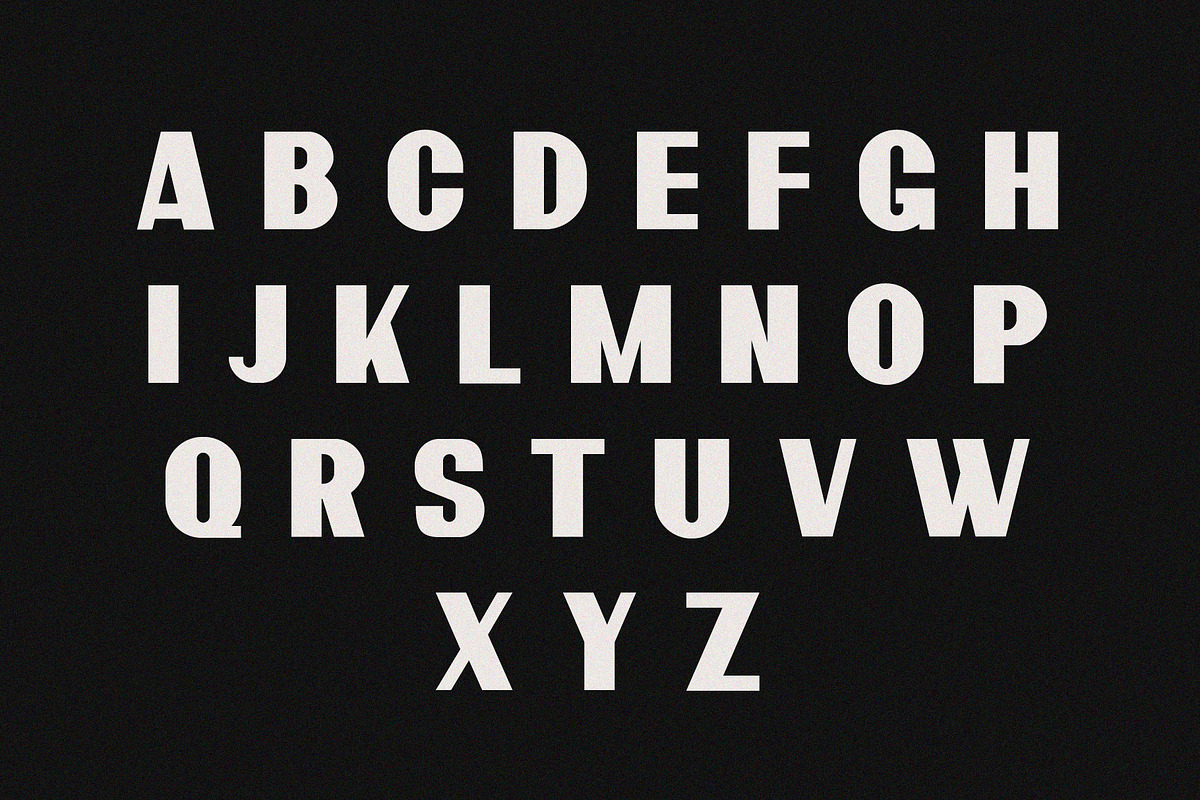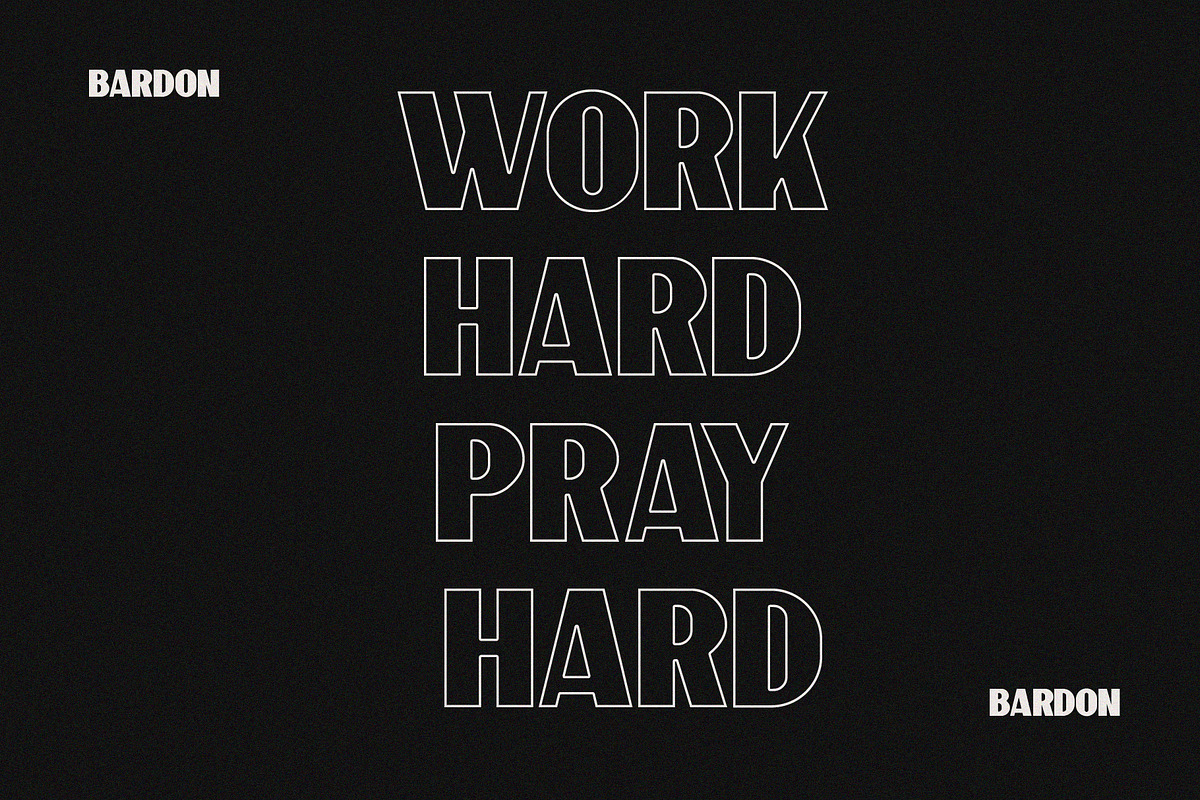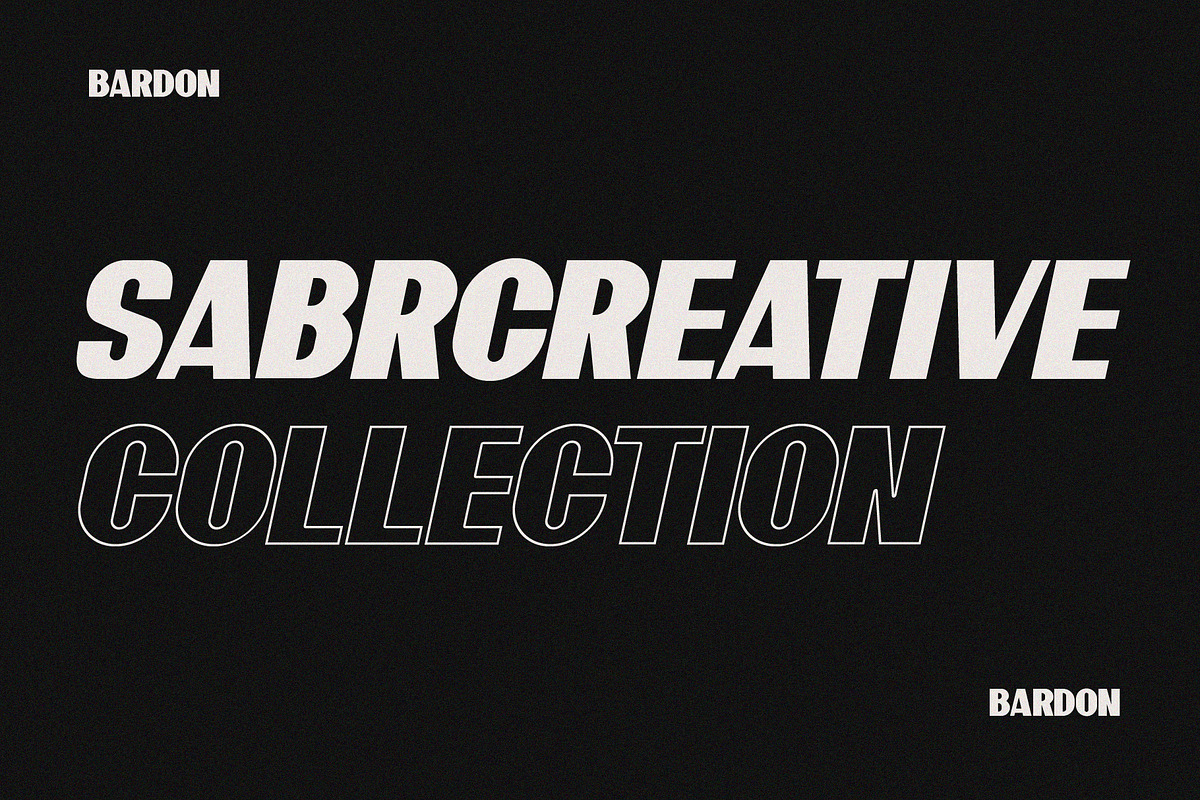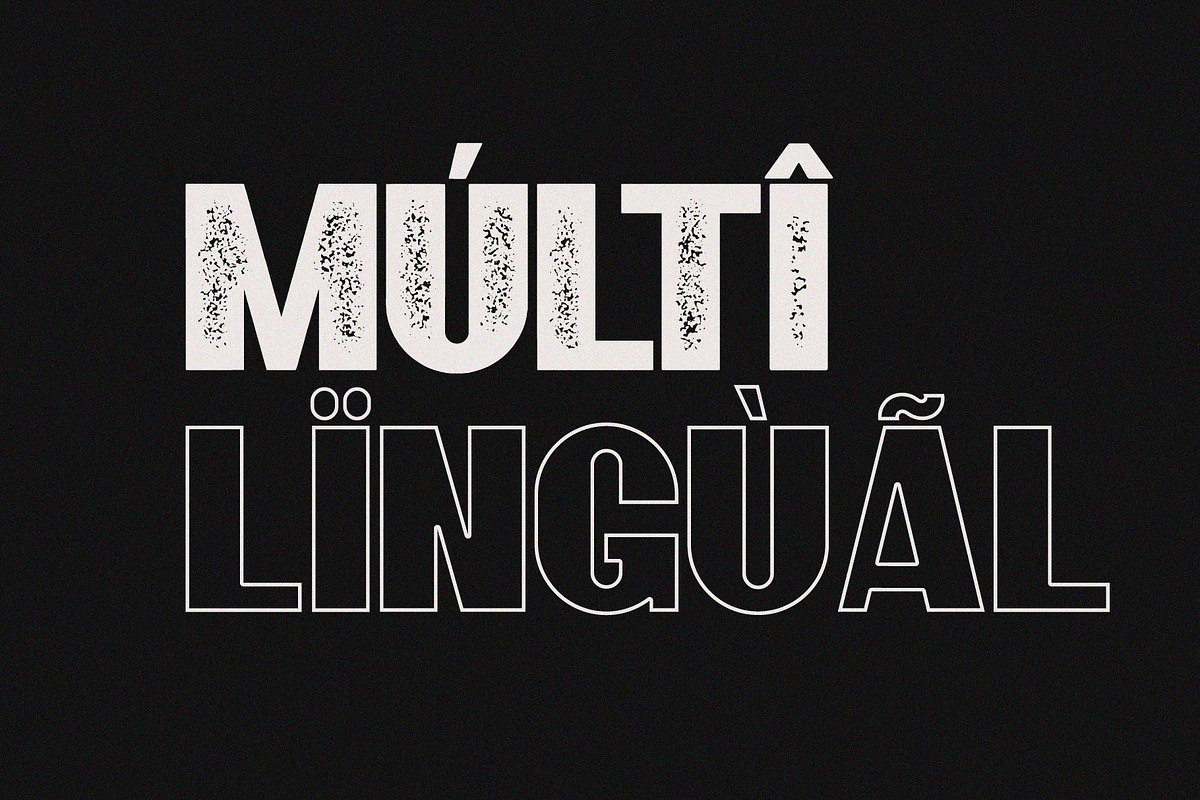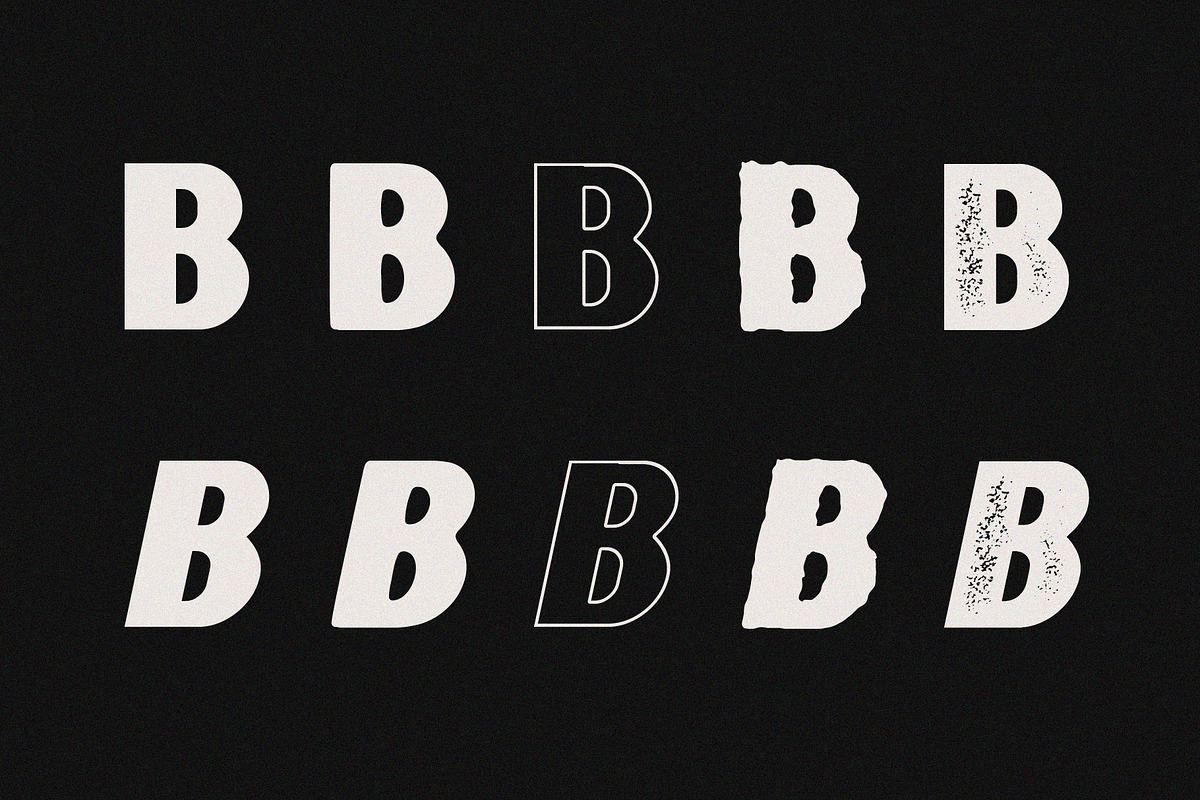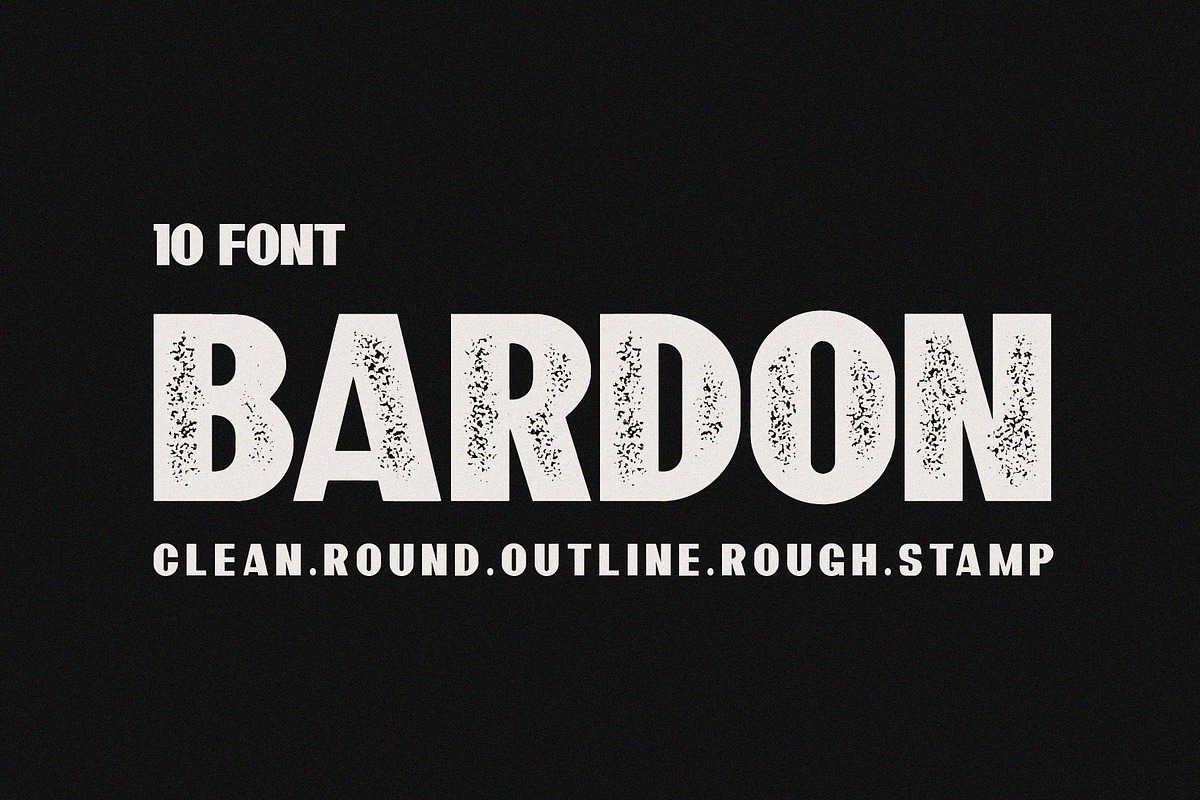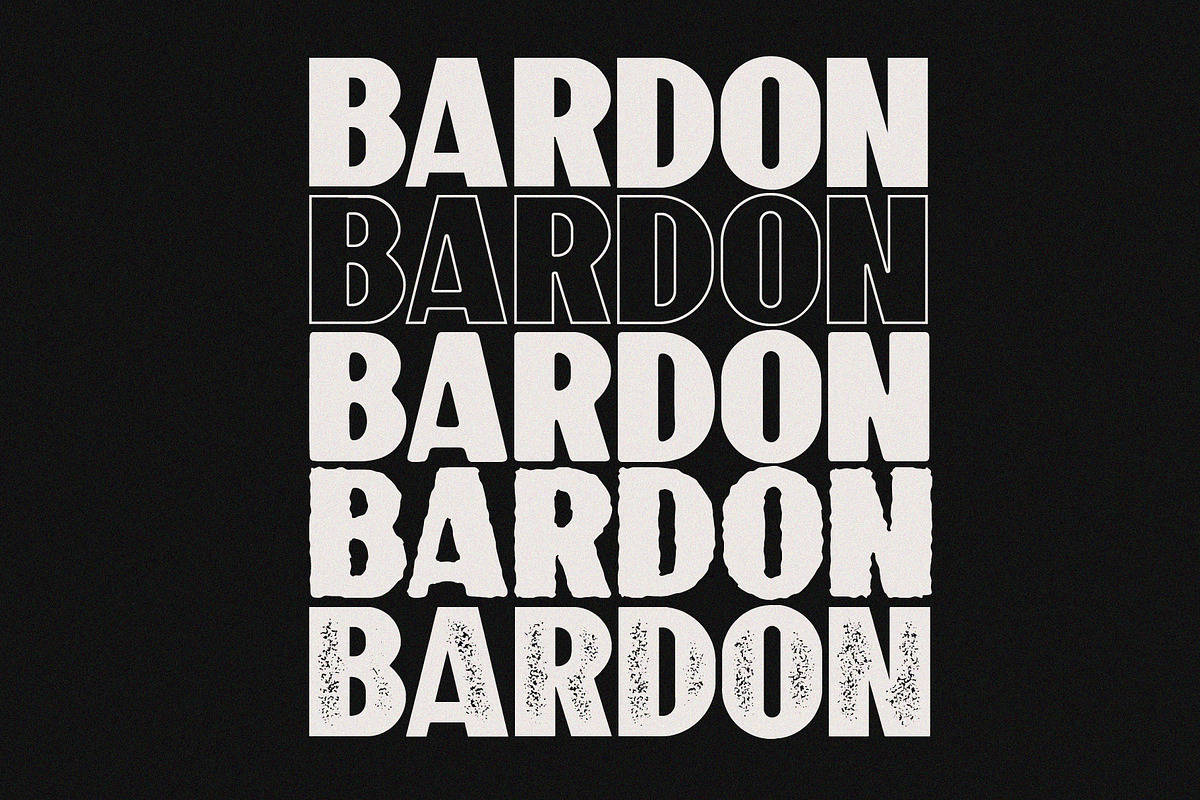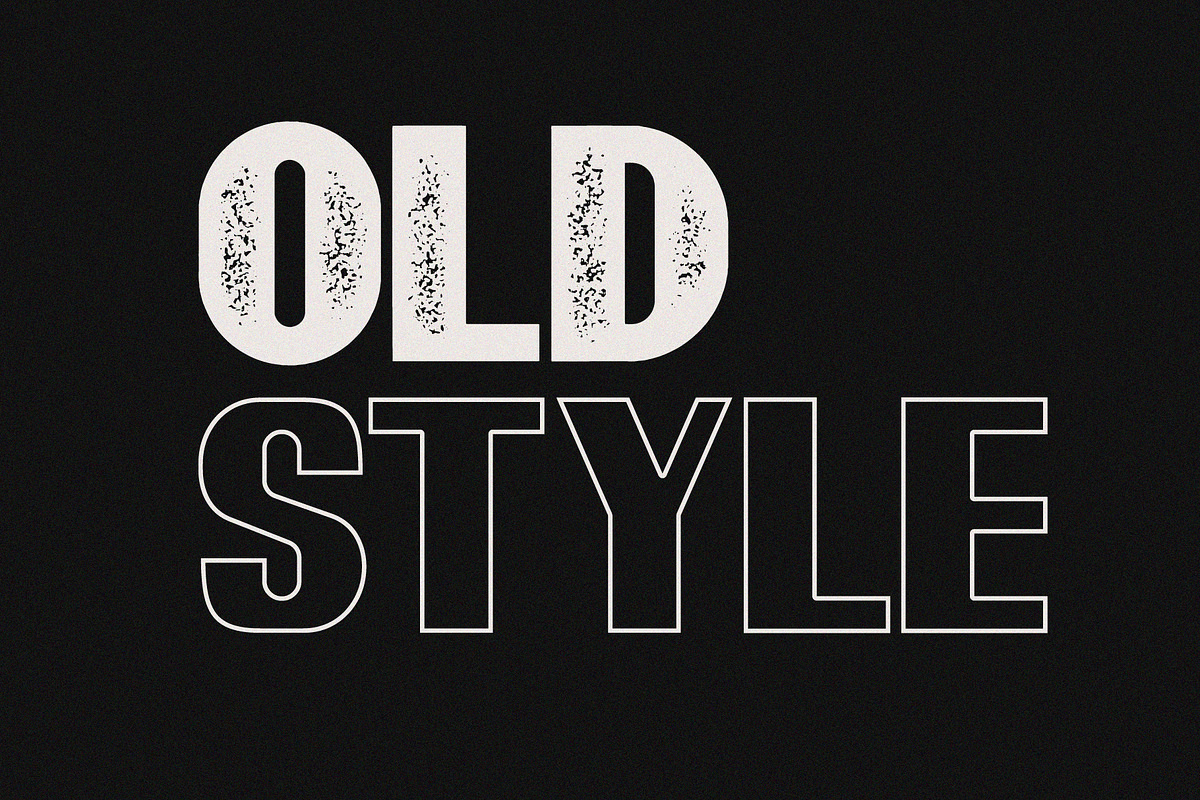
10 Font - Bardon Font Family
Bardon Font Family + 10 Style Fonts
9. Bardon Stamp Italic
10. Bardon Outline Italic
2. Numerals & Punctuations (OpenType Standard)
3. Accents (Multilingual characters) (AÀÁÂÃÄÅCÇDÐEÈÉÊËIÌÍÎÏNÑOØÒÓÔÕÖUÙÜÚÛWYÝŸ?ŸÆŒßÞ)
- Bardon Clean
- Bardon Rounded
- Bardon Rough
- Bardon Stamp
- Bardon Outline
- Bardon Clean Italic
- Bardon Rounded Italic
- Bardon Rough Italic
- 1. Bardon Clean
- 2. Bardon Rounded
- 3. Bardon Rough
- 4. Bardon Stamp
- 5. Bardon Outline
- 6. Bardon Clean Italic
- 7. Bardon Rounded Italic
- 8. Bardon Rough Italic
- 1. All Upper Case
- 2. Numerals & Punctuations (OpenType Standard)
- 3. Accents (Multilingual characters) (AÀÁÂÃÄÅCÇDÐEÈÉÊËIÌÍÎÏNÑOØÒÓÔÕÖUÙÜÚÛWYÝŸ?ŸÆŒßÞ)
- 4. PUA Encoded